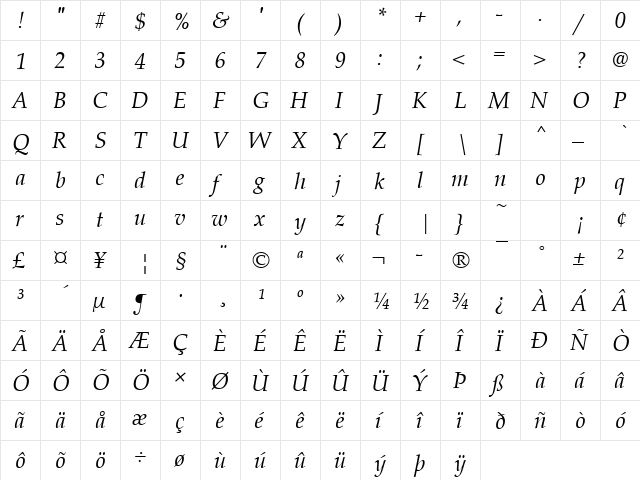
Becker Palladio Italic
Design Context for Becker Palladio Typeface
Becker Palladio takes a measured approach to typography — its balanced proportions and neutral character make it a reliable workhorse for both digital and print work. Its italic angle brings a sense of urgency and motion to the letterforms.
Pro Tip: Try Becker Palladio for annotation and caption copy alongside an upright companion — the contrast in angle creates a dynamic but ordered typographic system.